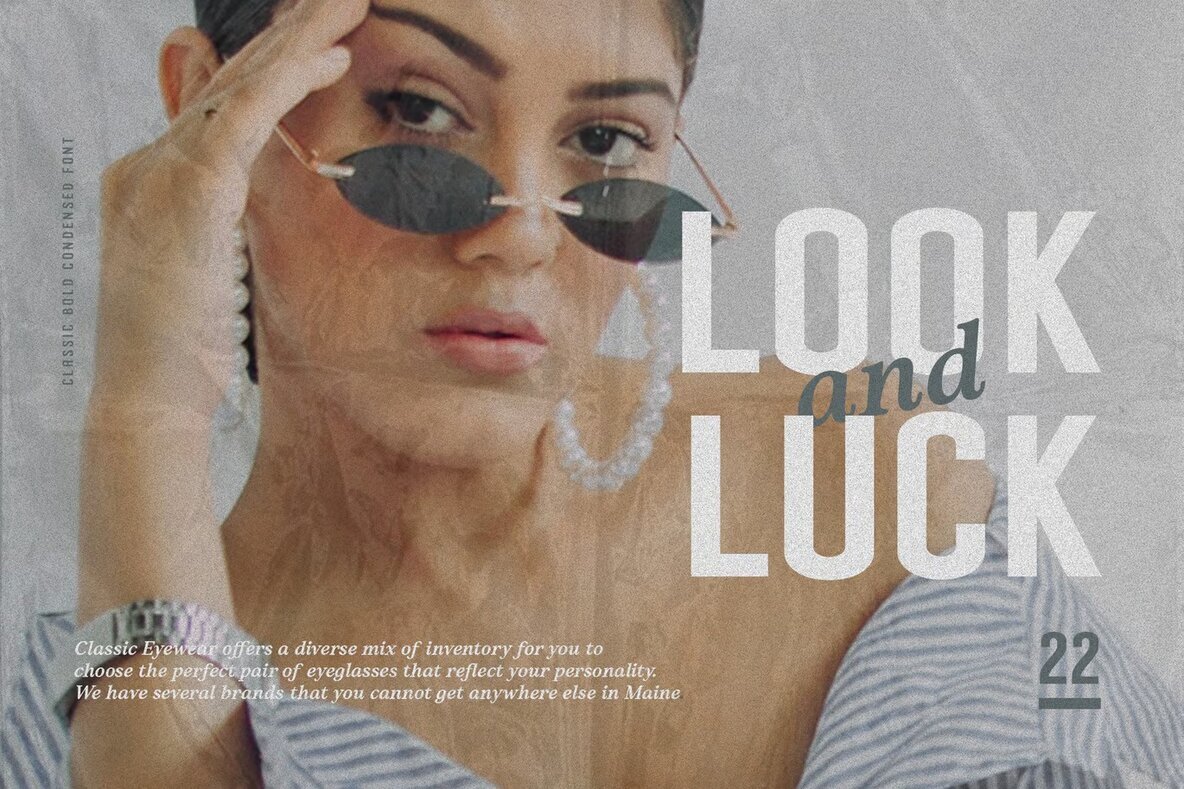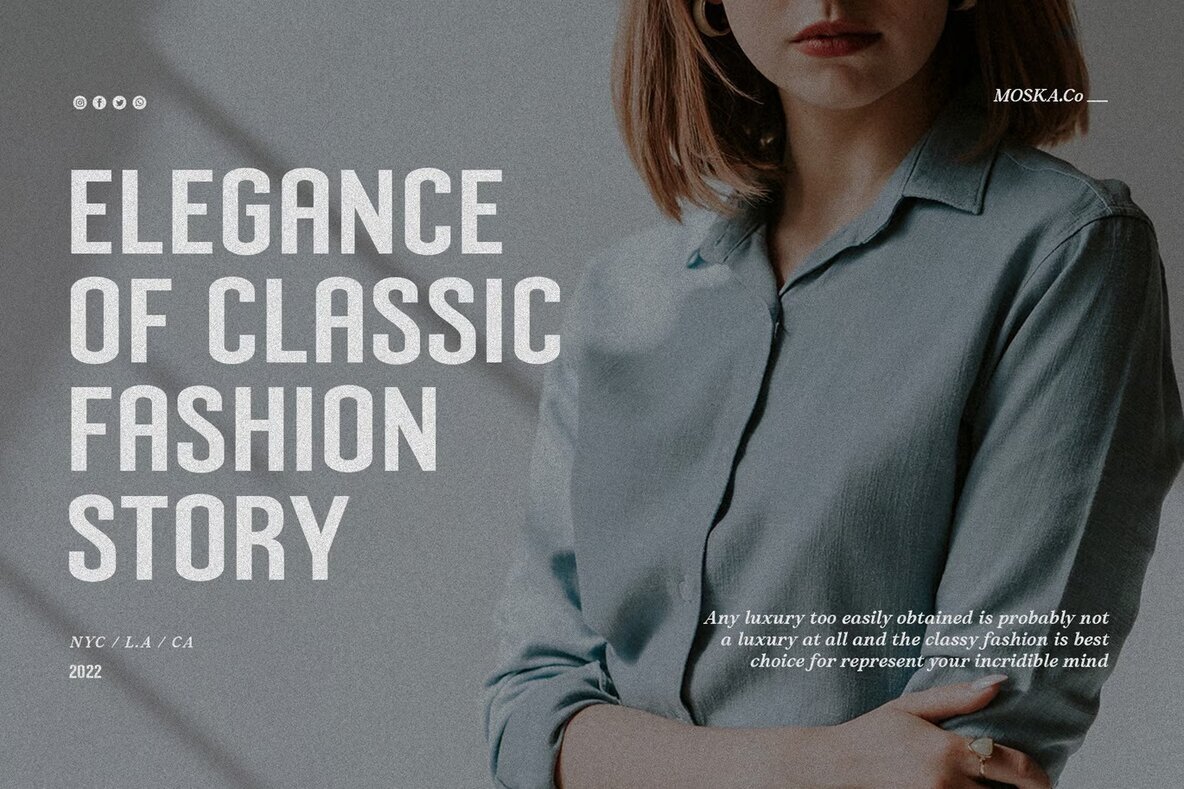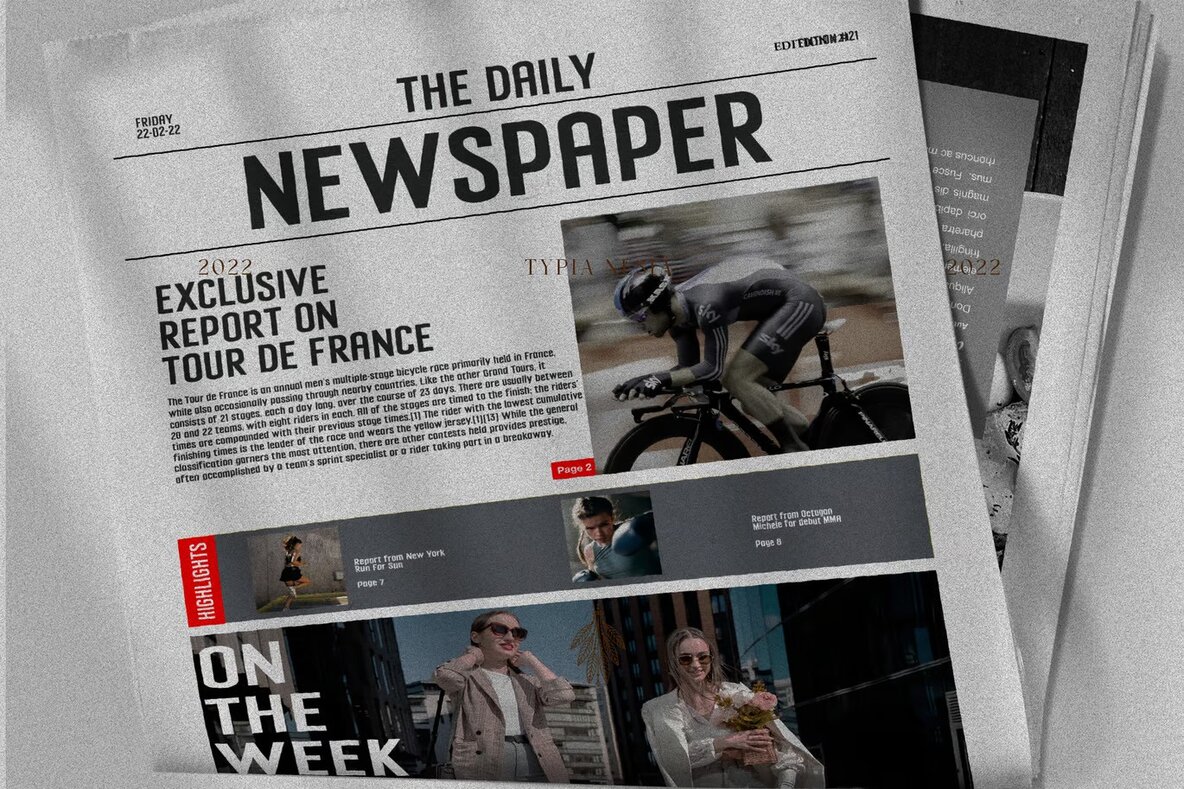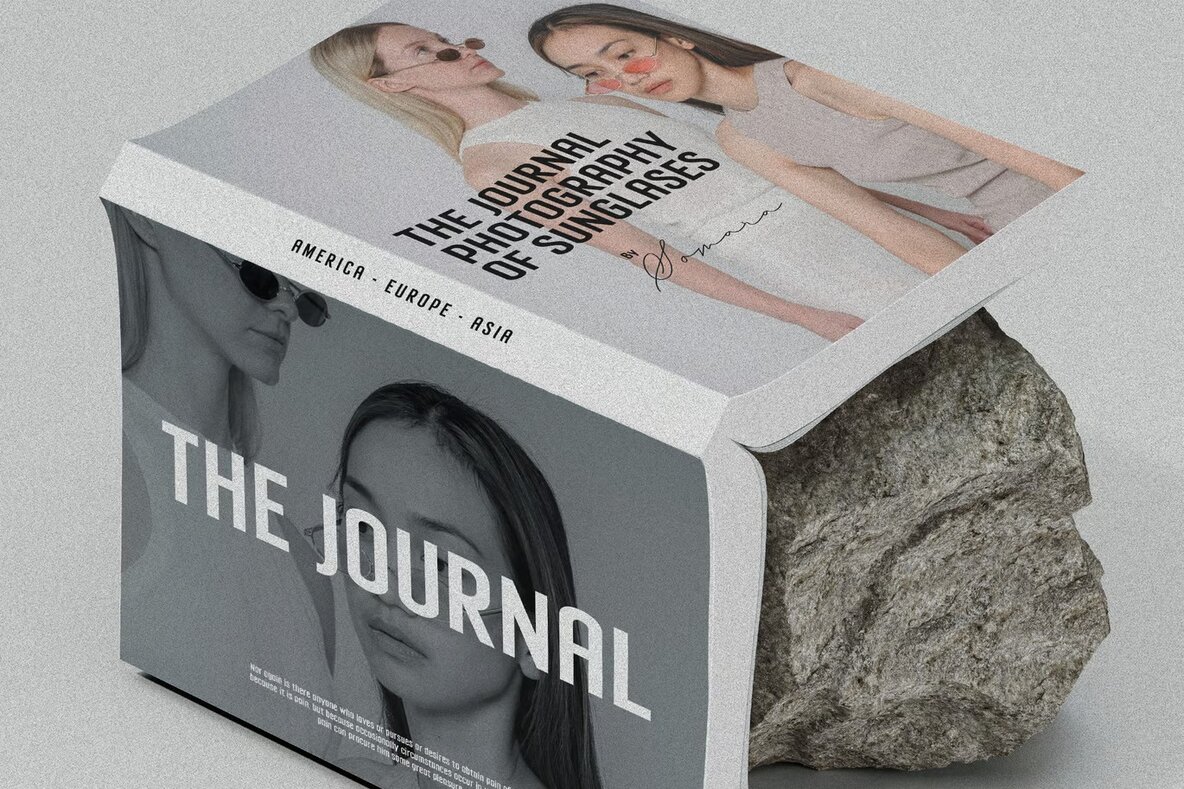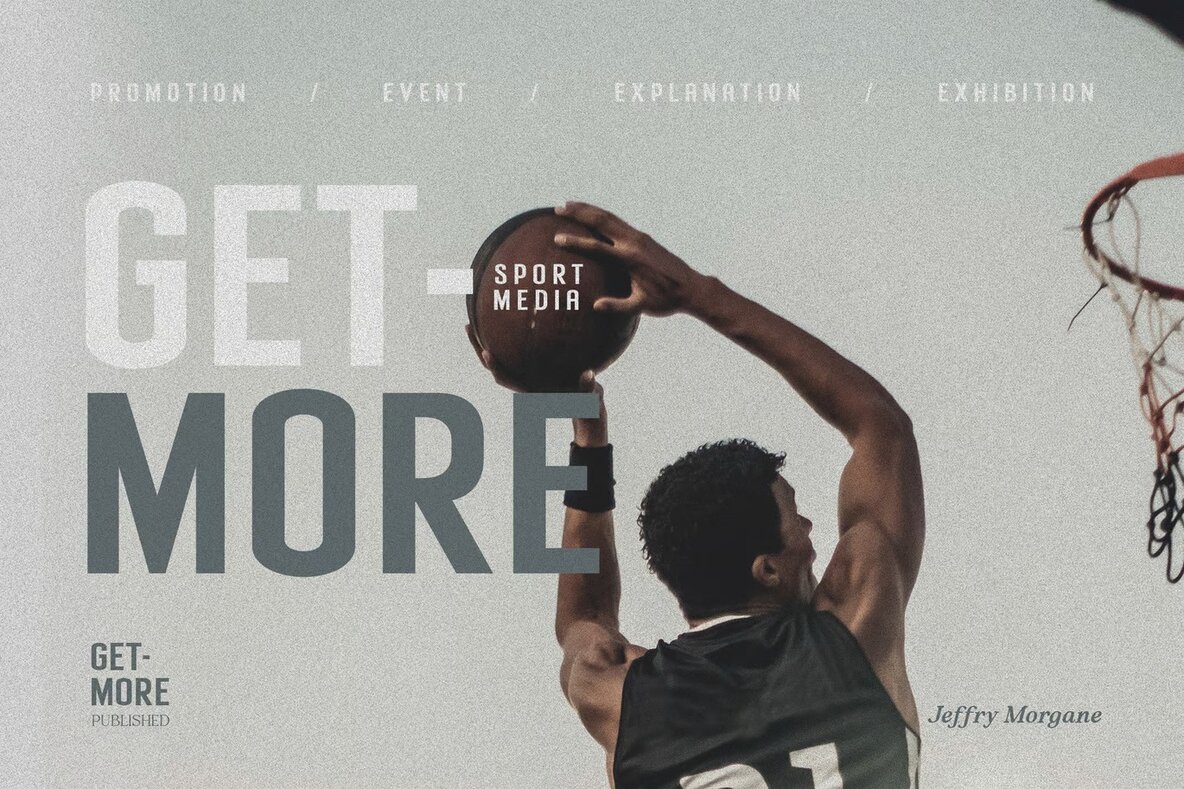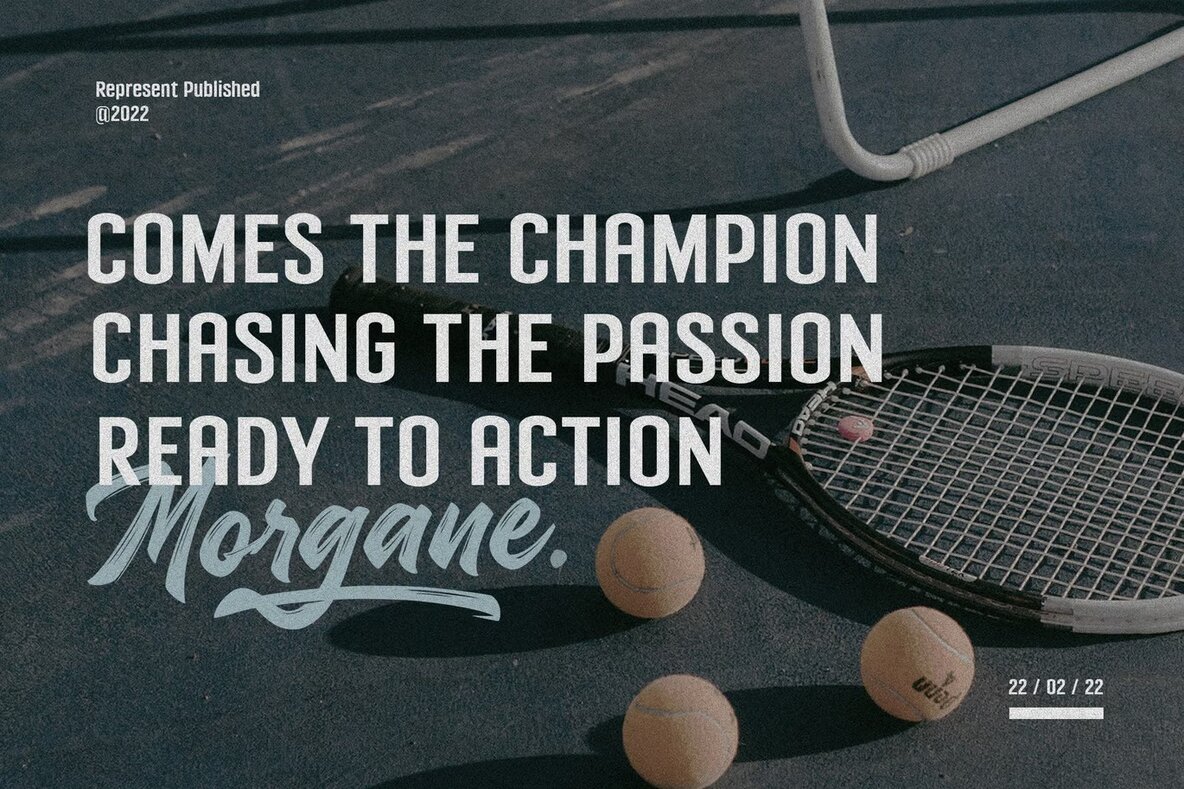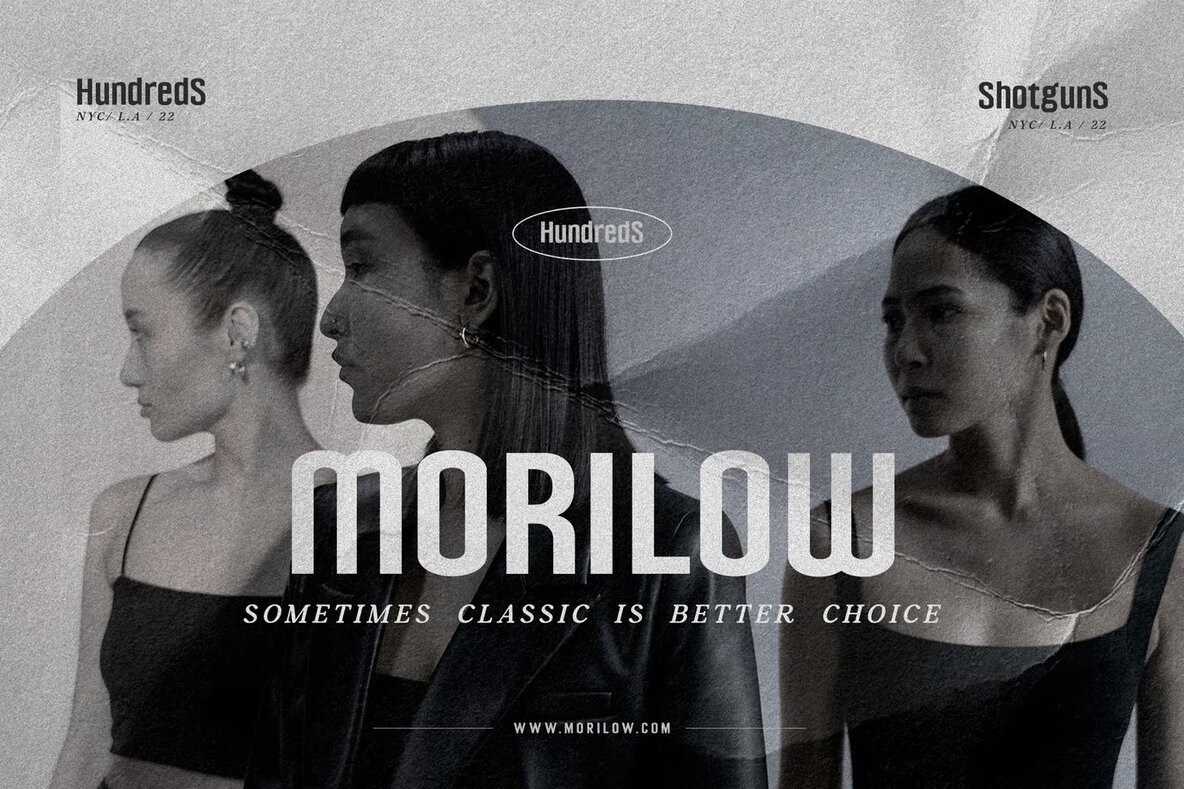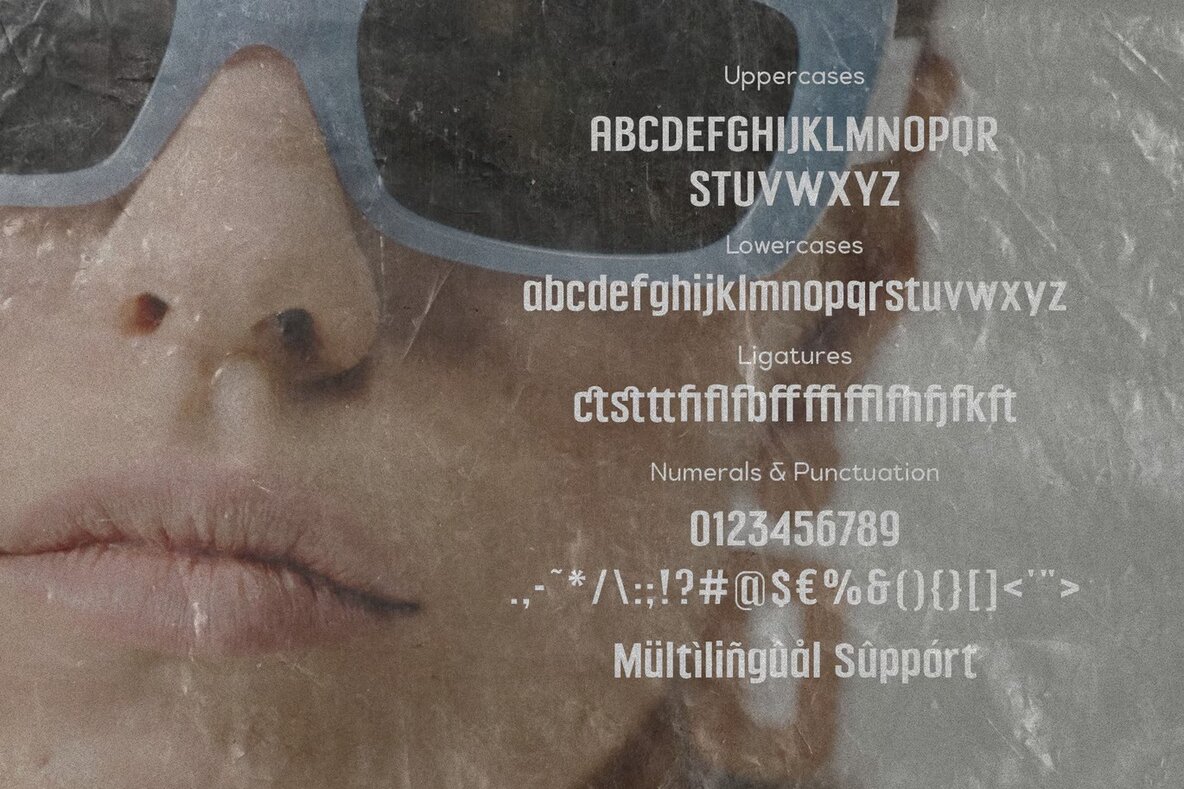
Morgane Font
Morgane Regular
Morgane is a classic retro sans-serif font with a bold condensed style, perfectly tailored for a variety of design applications. Its vintage aesthetic makes it ideal for branding, modern advertising, and retro-themed projects. Whether you’re crafting logos, adventure or mountain hiking apparel, or creating posters and book covers, Morgane offers a timeless quality that enhances the visual impact of your designs.
This versatile font is also suitable for magazine editorials, websites, blogs, and custom merchandise like mugs and t-shirts. The bold and condensed features make it particularly effective for both bold headlines and detailed graphic compositions. Add a touch of retro charm to your next project with Morgane’s captivating style.